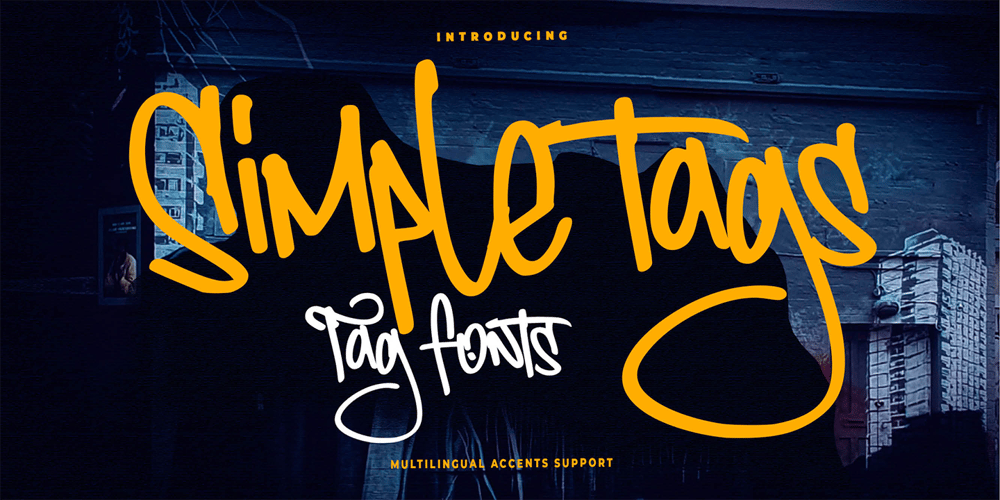
Simple Tags Font Family was designed by Abdul Malik Wisnu, Anang Fibriyanto and published by Gassstype. Simple Tags contains 1 styles and family package options. Hello Everyone, introduce our new product Simple Tags It Is Tag Font with a natural feel. This handmade font will make your design has a beautiful natural touch for each details. It is perfect for any design project as Invitation,logo, book cover, craft or any design purposes.You can activate 11 Alternate and 13 Ligatures glyphs OpenType panel.